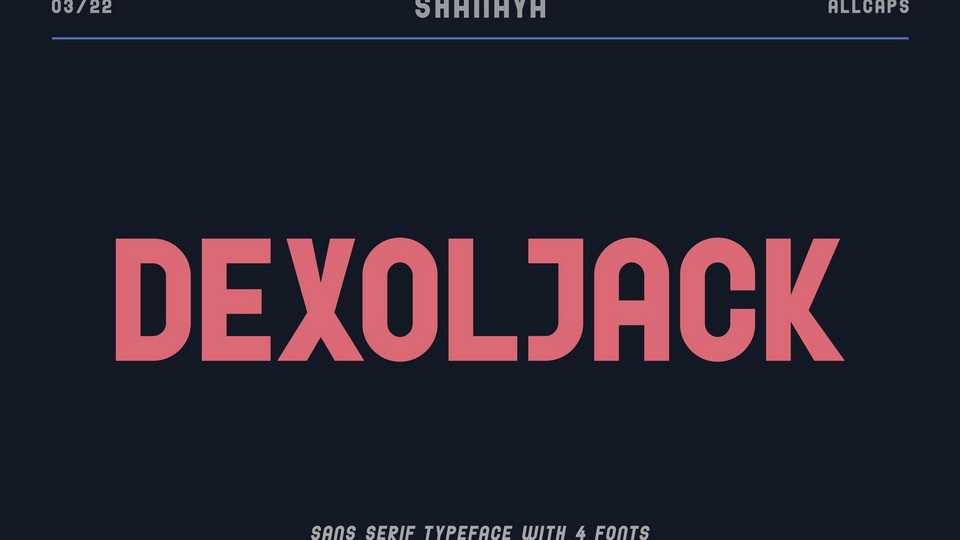
Download Dexoljack font, an all caps sans serif typeface. With a very unique and different look, Dexoljack font adopts a display style that is not bound by typography rules.
Designer: Shanaya Creative